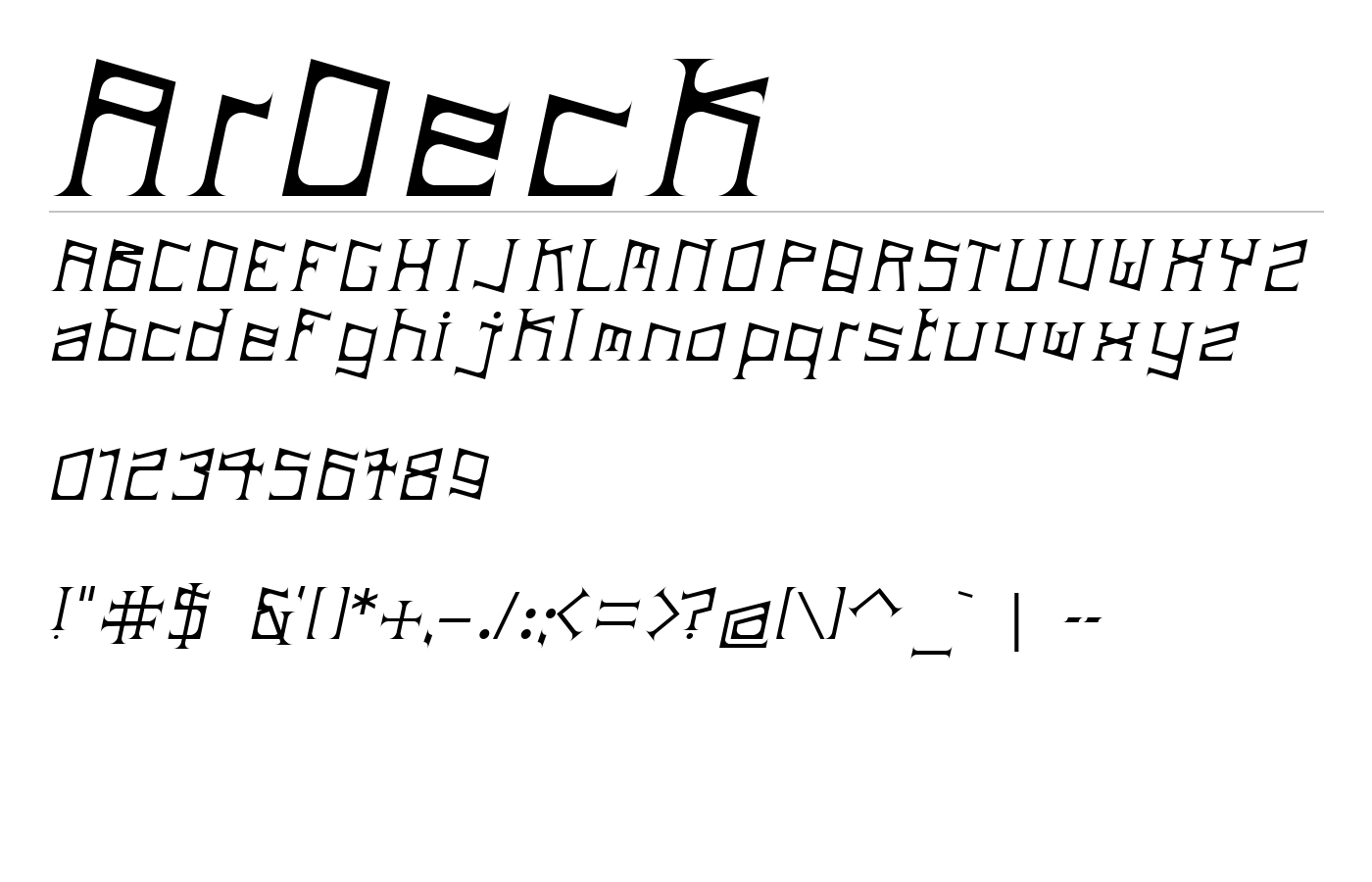
ArDeck is a unique serif font with a distinctive angular and slightly condensed style, featuring high contrast between thick and thin strokes and elegant bracketed serifs that give it a dynamic, almost calligraphic feel. Its tall x-height and inclined letterforms create a modern, sophisticated look that works well for display uses such as logos, headlines, and editorial design where a blend of classic serif refinement and contemporary edge is desired. This font stands out with its creative, slightly futuristic personality, making it ideal for brands seeking a bold yet elegant statement.
ArDeck Font